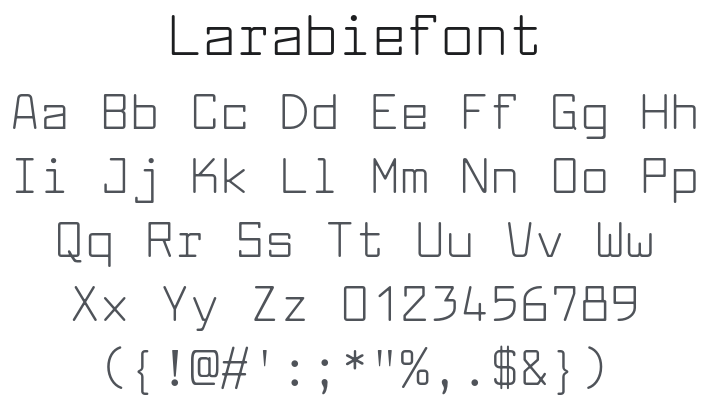
Larabiefont Font
About Larabiefont
Larabiefont is a monospaced typeface rooted in 1970s machine lettering, refined for clarity and precision in modern design. Its squared forms and rounded terminals create a steady rhythm that enhances legibility across dense technical layouts and data-heavy environments. Available in two weights with italics and multiple widths from extra-condensed to extra-expanded, it adapts easily from compact tables to bold headers while maintaining perfect alignment. Ideal for scientific, industrial, and instructional applications, Larabiefont combines functional rigor with a clean, contemporary voice that remains distinctive and reliable.